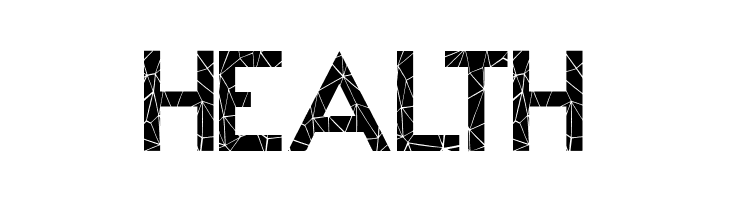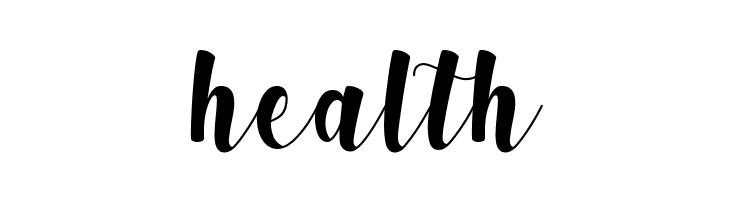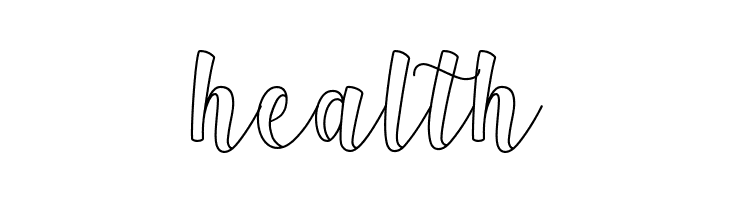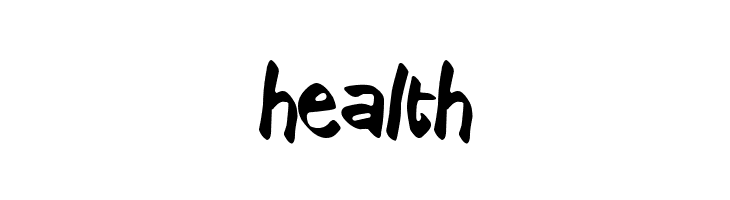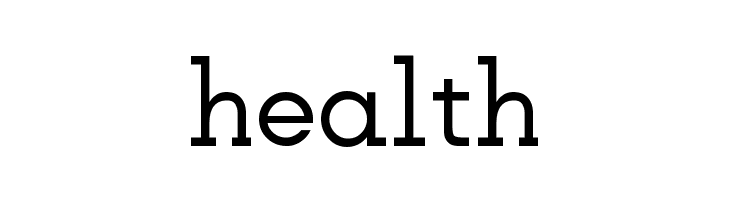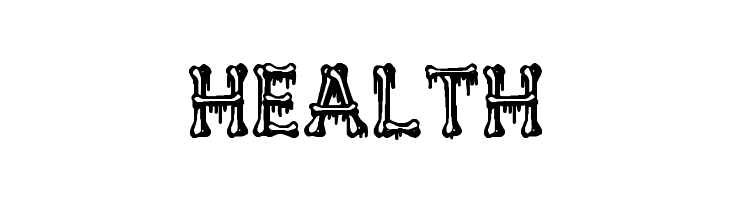
A bold, expressive handwritten font with dynamic strokes.
A bold, decorative font with a dripping effect, ideal for spooky themes.
A playful and elegant handwritten font with smooth, flowing lines.
A bold, expressive script font with flowing, cursive letterforms.
A playful, casual handwritten font with uneven strokes and a natural feel.
A flowing, elegant script font with a sophisticated handwritten style.
A bold, shattered glass effect font with a modern and decorative style.
A modern serif font with clean lines and balanced proportions.
A playful, icy font with bold, textured letters resembling snow-covered surfaces.